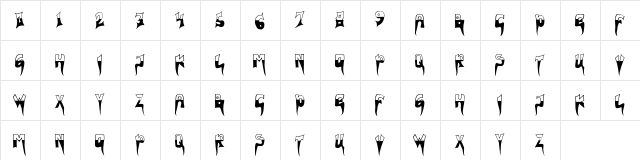
VALEN Regular
Design Context for VALEN Typeface
VALEN is a composed and adaptable typeface that performs quietly and consistently across a wide range of design contexts.